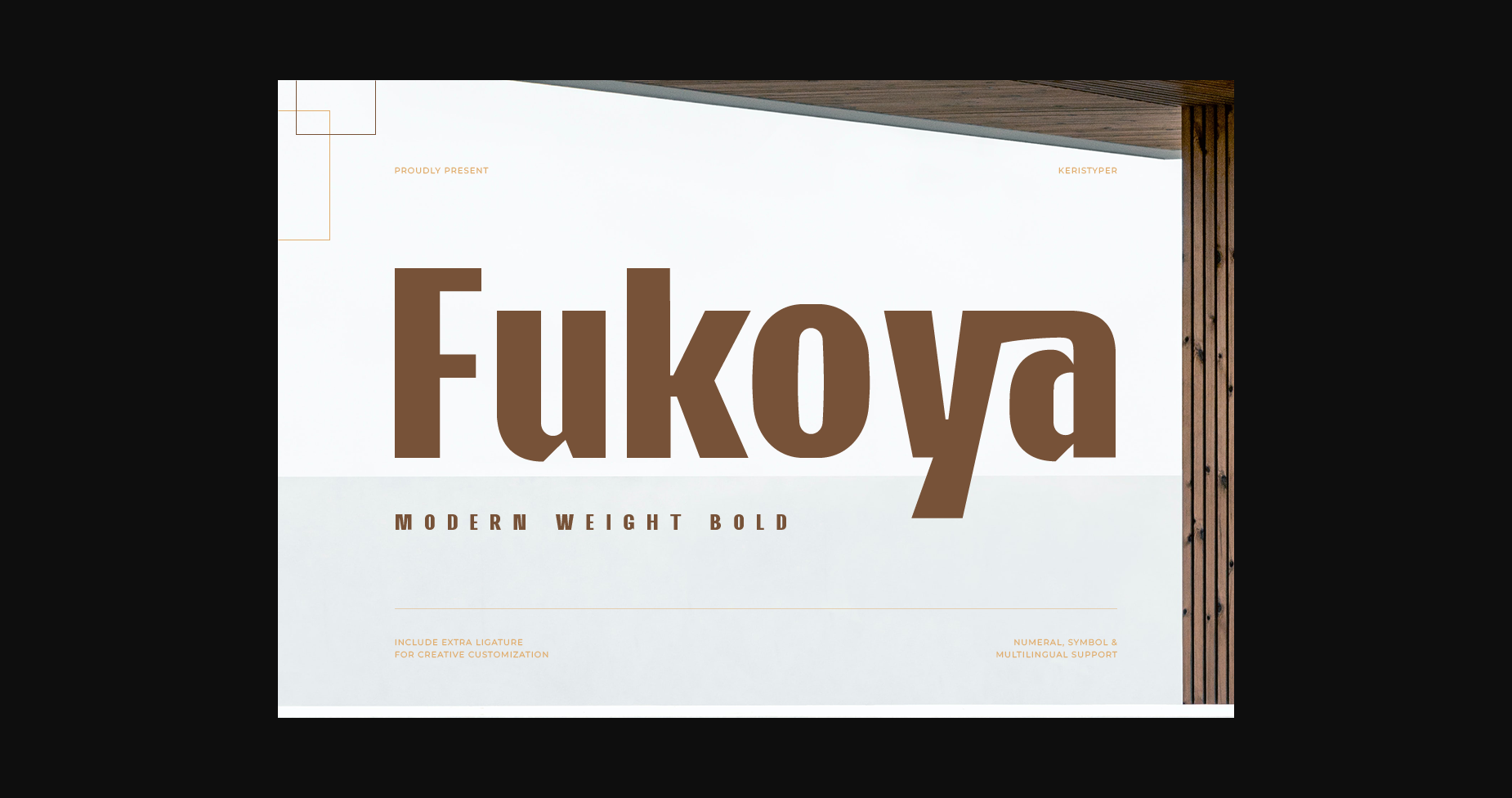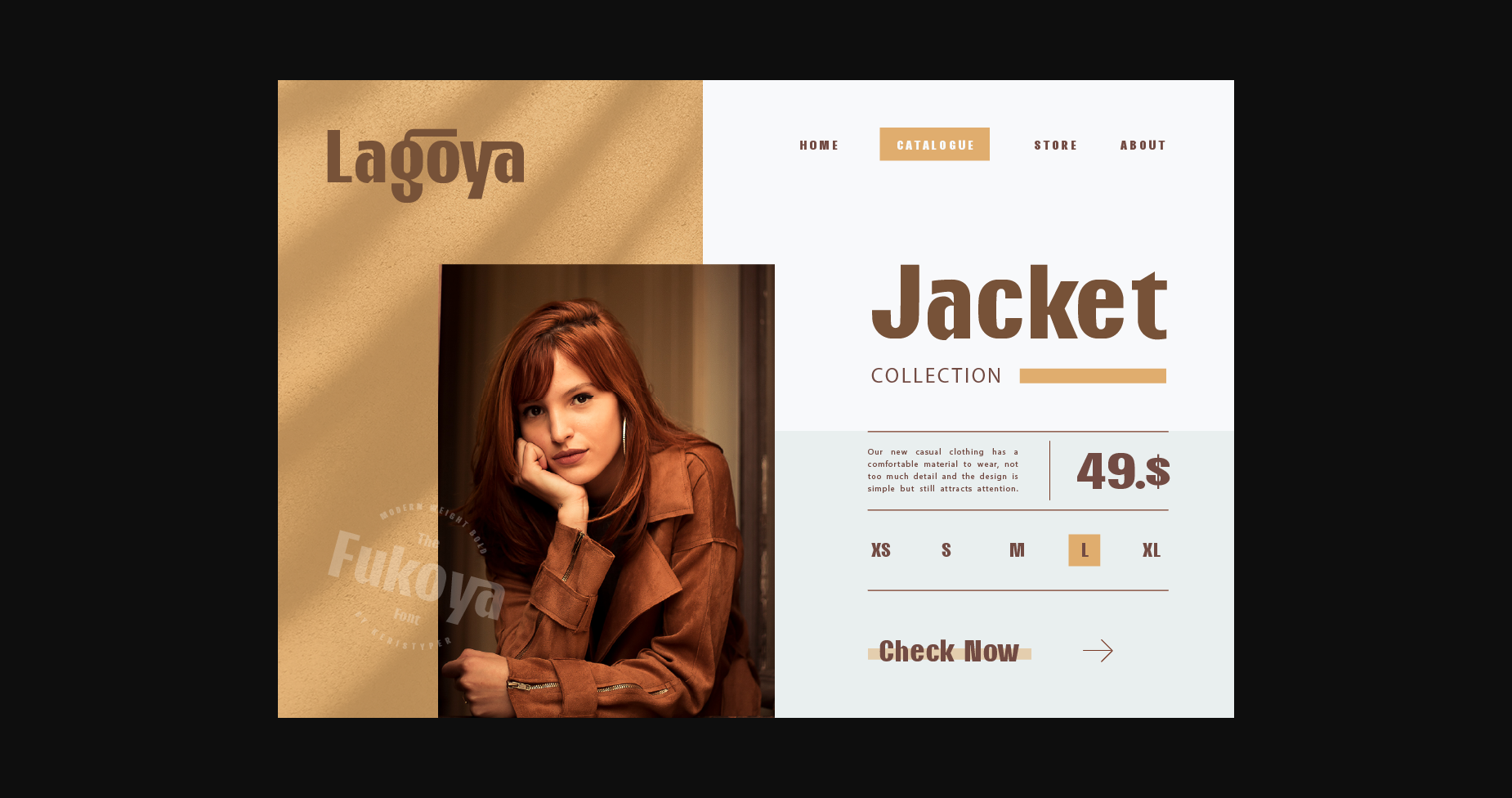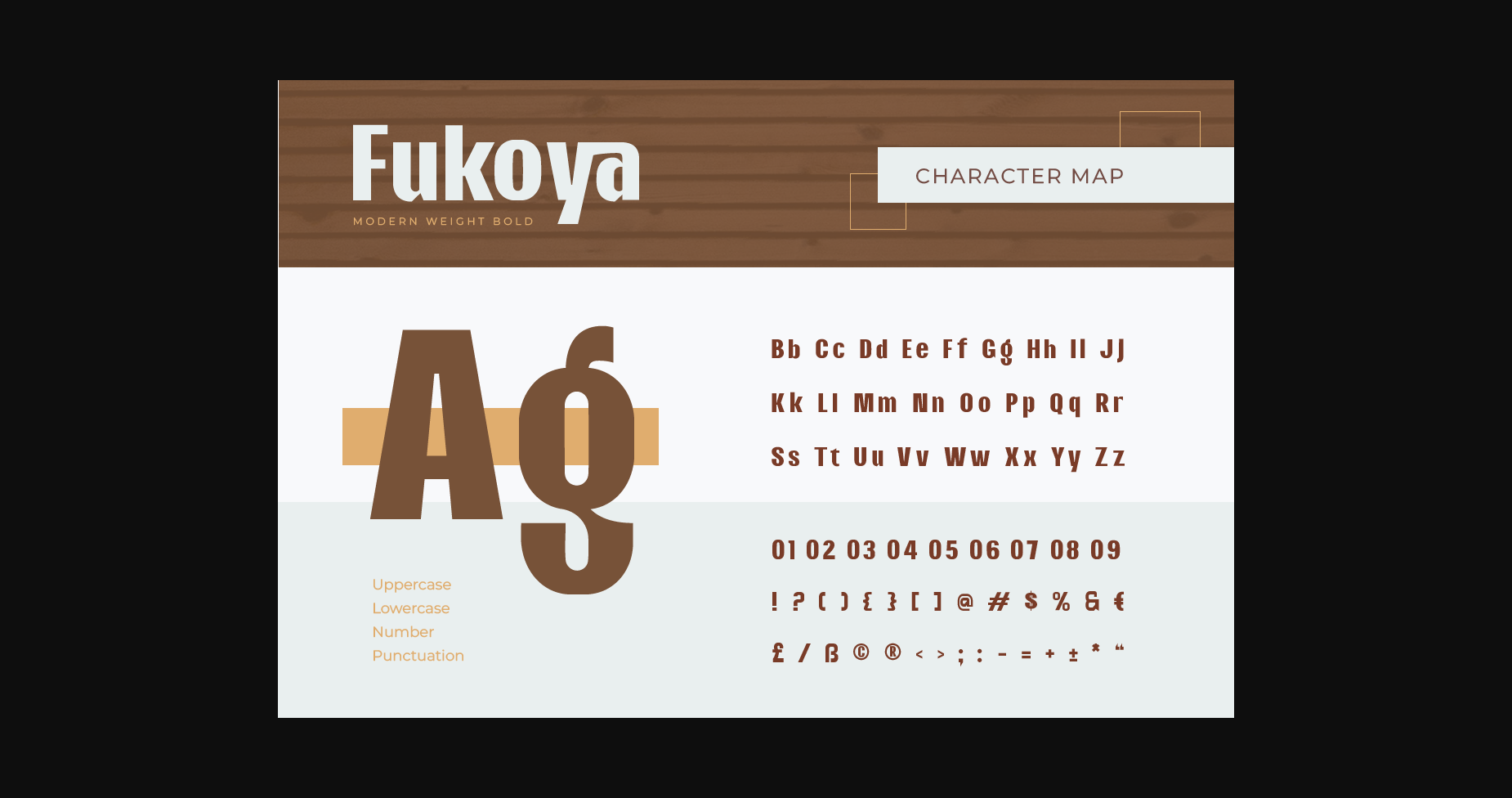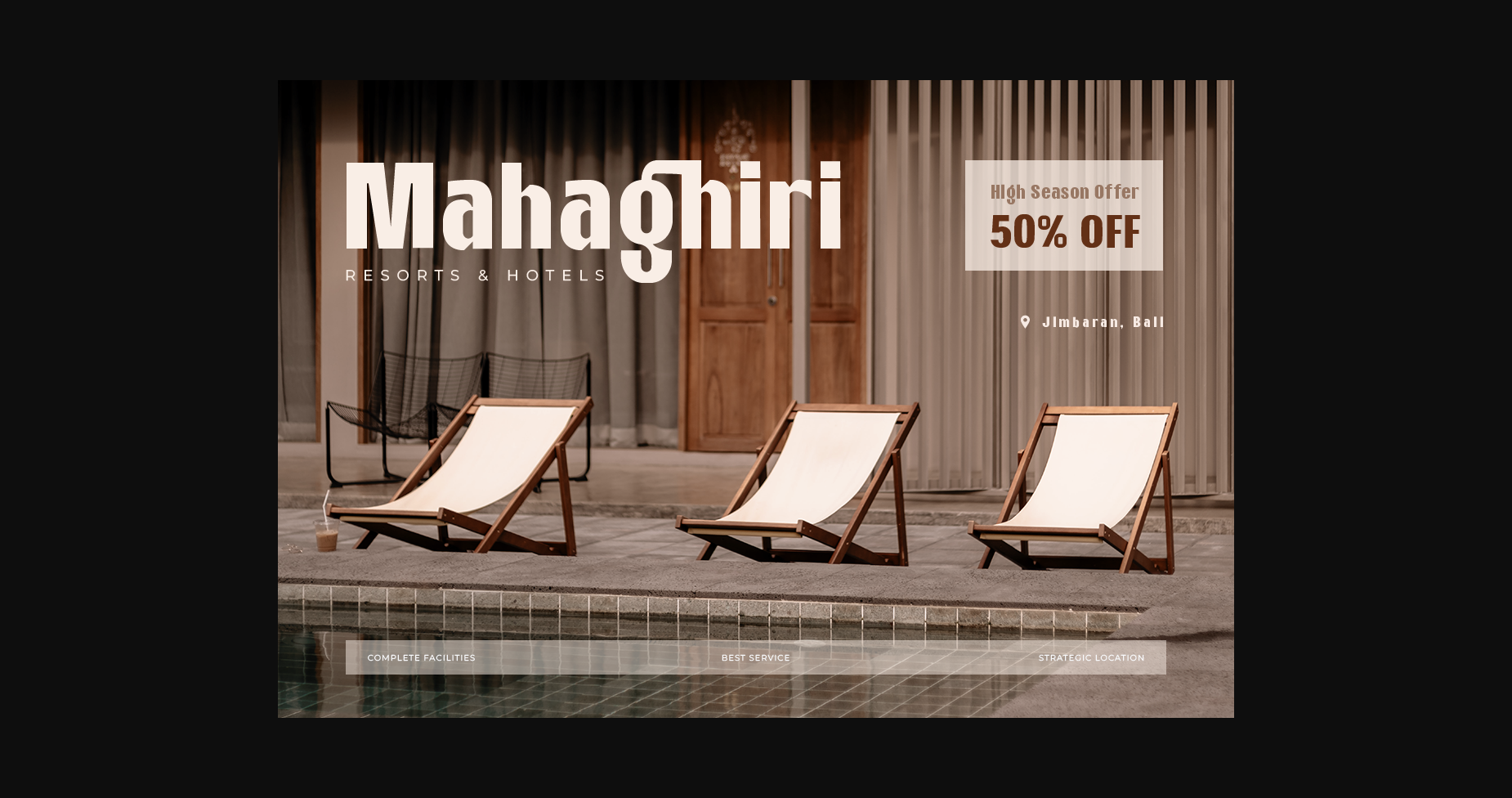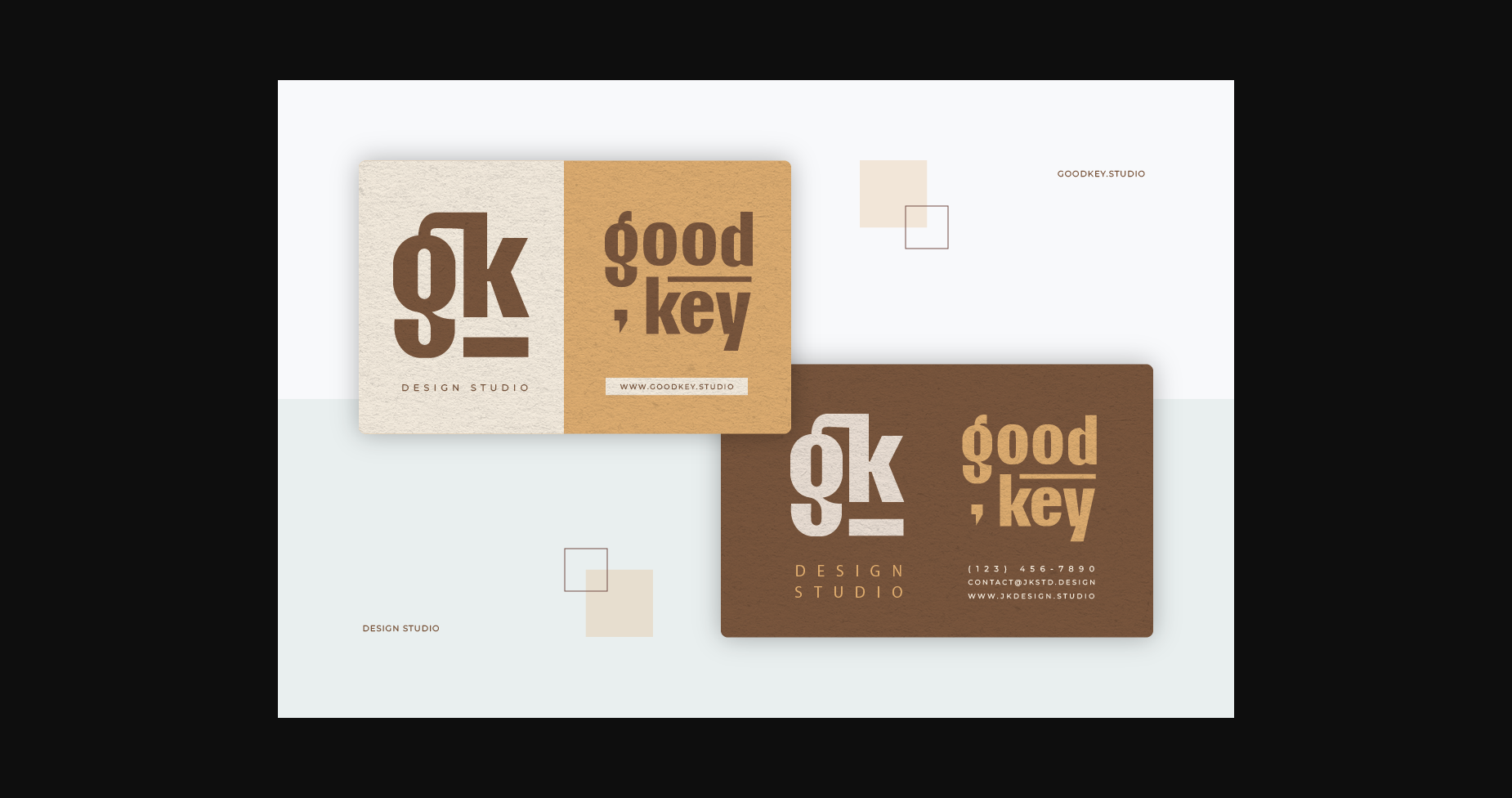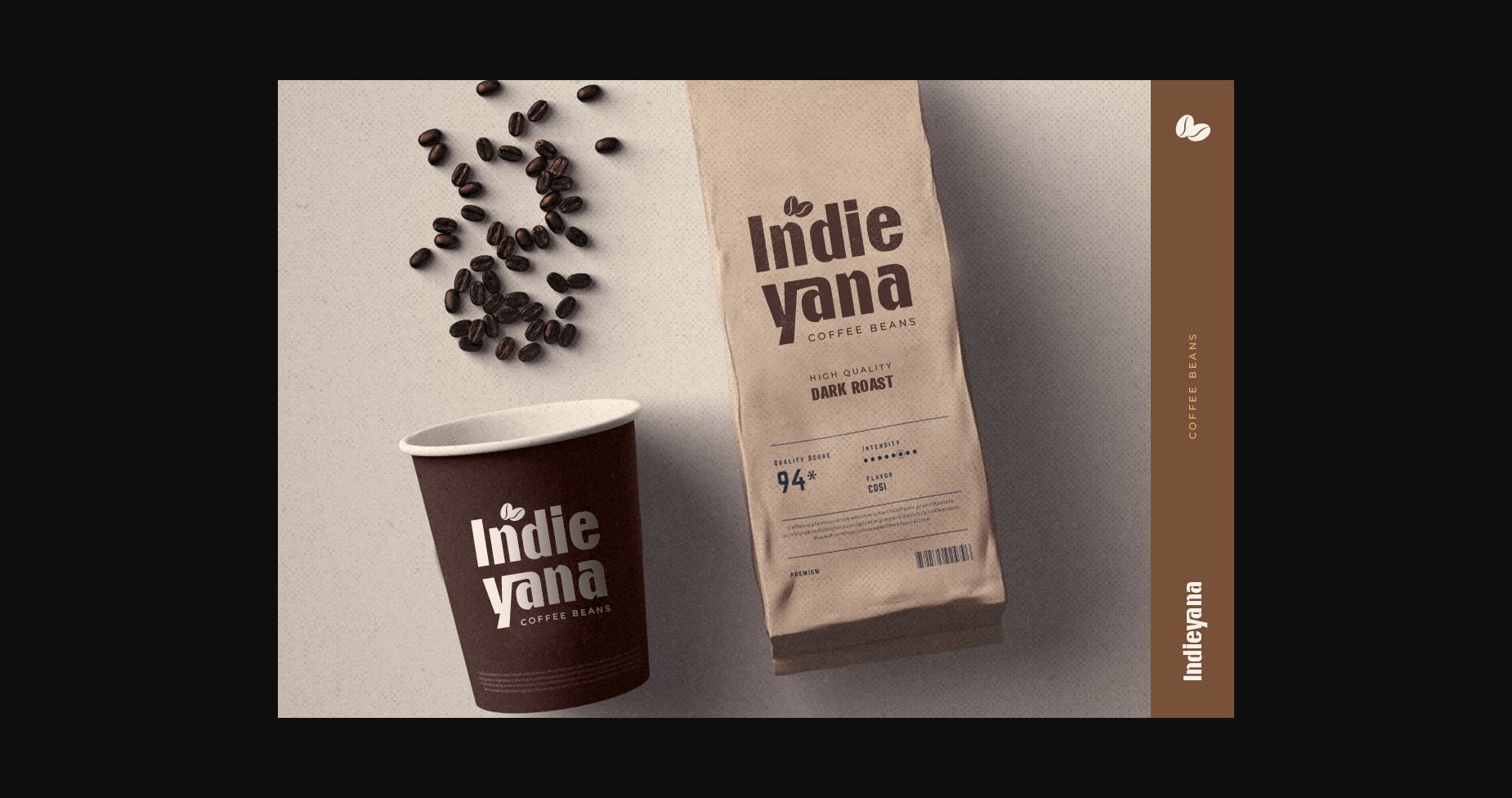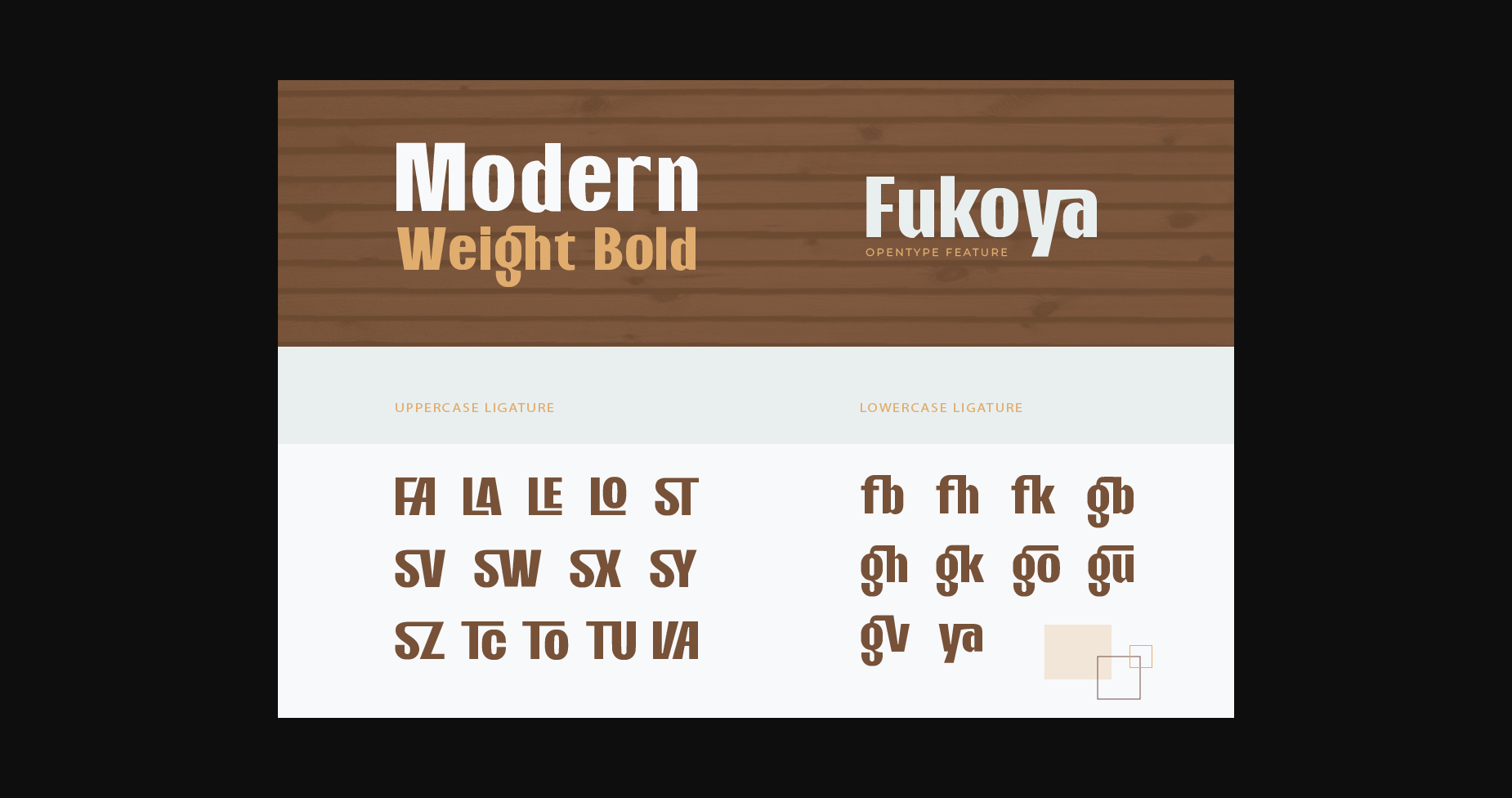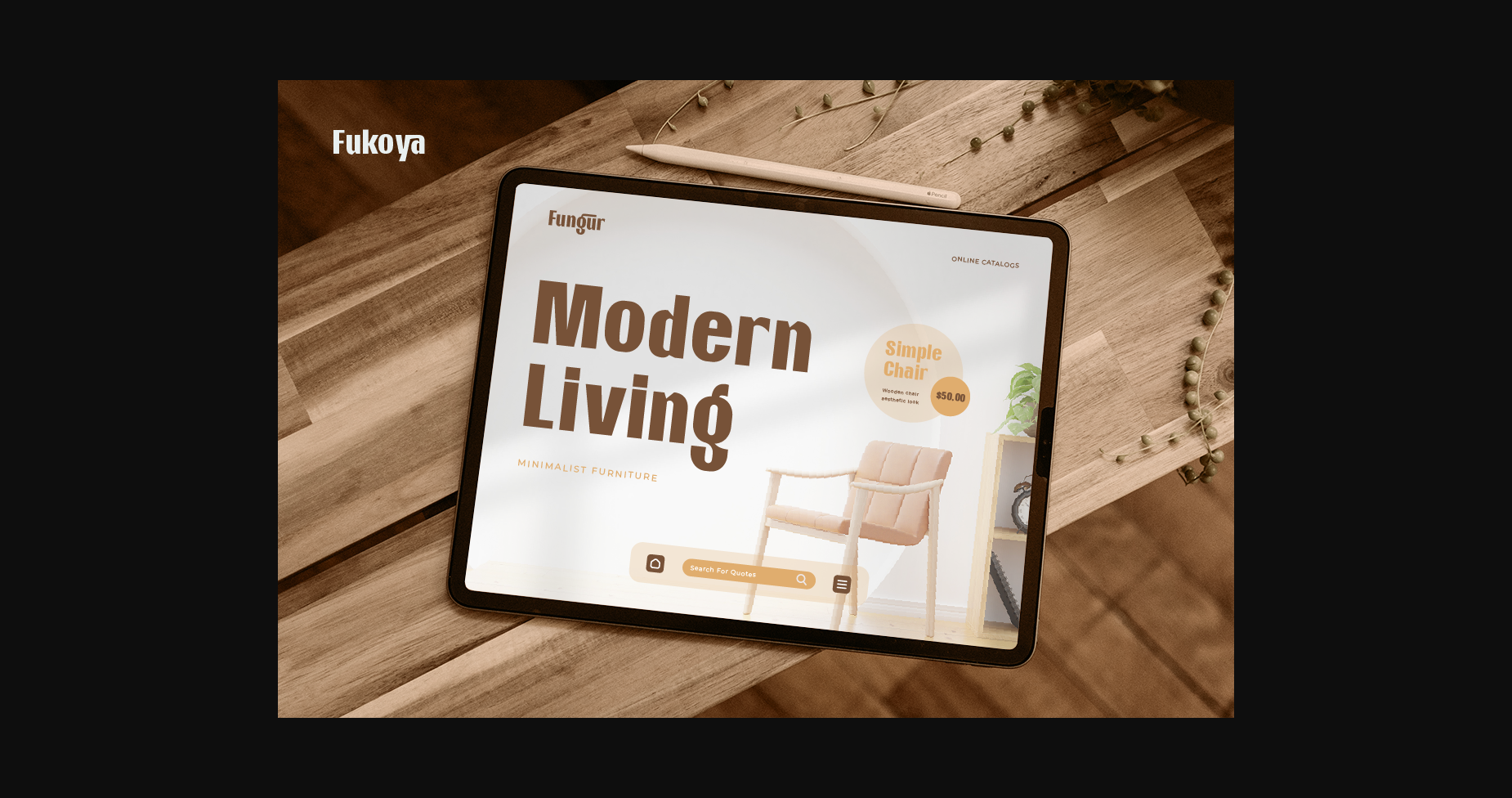
HomeSans Serif FontsFukoya Font Sans Serif Fonts Fukoya Font FacebookXPinterestWhatsApp 1 of 11 ... Fukoya Font Poster 2... Fukoya Font Poster 3... Fukoya Font Poster 4... Fukoya Font Poster 5... Fukoya Font Poster 6... Fukoya Font Poster 7... Fukoya Font Poster 8... Fukoya Font Poster 9... Fukoya Font Poster 10... Fukoya Font Poster 11... About Fukoya Font Fukoya is a weight-bold Sans Serif font with a soft and confident impression. This font is perfect for logo design, social media, movie titles, book titles, short text even long text letters. DOWNLOAD NOW People also explored James Tomas Font Golden Boy Font Somethings Sweet Font Starko Font Baligeh Font Signemare Font Hello Holiday Font Nagatha Christie Font Love at First Sight Font 338 0 TagsFukoyaFukoya Font Previous articleMayhem FontNext articleSanjink Molrener Font LEAVE A REPLY Cancel reply Comment: Please enter your comment! Name:* Please enter your name here Email:* You have entered an incorrect email address! Please enter your email address here Website: Save my name, email, and website in this browser for the next time I comment. Personal Use Free Bally Girl Personal Use Free Read more about this font Hanifah Personal Use Free Read more about this font Sellena Brush Font Personal Use Free Read more about this font Orchid Personal Use Free Read more about this font BLOG How to Cut Any Font on Cricut: Convert a Font to SVG (Free) Turn any font into a clean SVG so it cuts crisp on Cricut - a quick 3-step workflow using a free font-to-SVG tool. Where to Buy American Fonts Online in 2024 Best Fonts for YouTube Videos: Make Your Thumbnails Stand Out Modern Sans-Serif Fonts That Brands Love in 2025